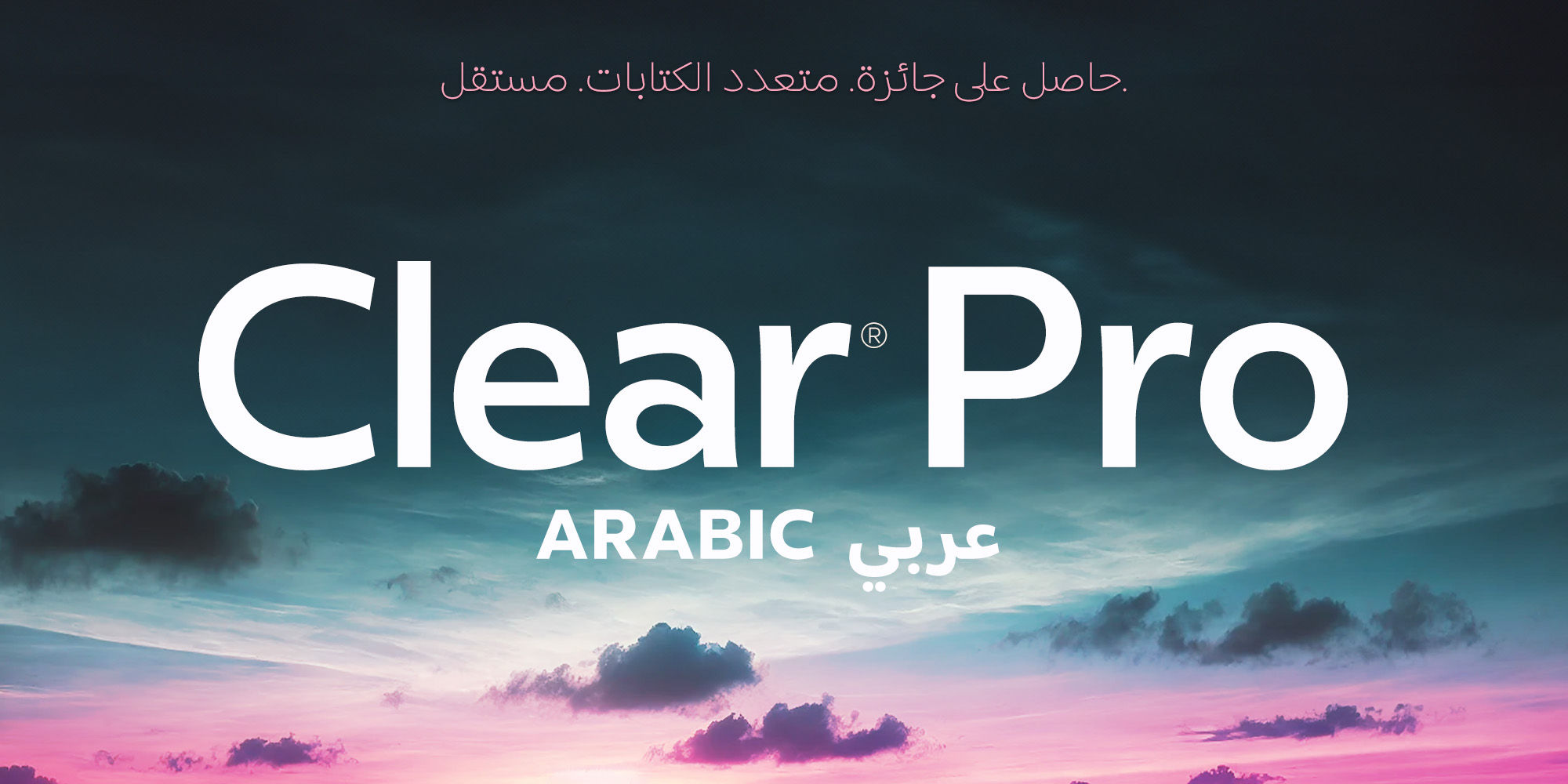
كلير عربي
Winner of the 2024 Communication Arts Award of Excellence. Clear Sans™ Pro is a rational geometric sans serif designed to provide an alternative to vernacular and geometric typefaces. Originally hand-painted in 2008, it was completed for a friend's identity and later expanded. Inspired by the bold, straightforward lettering of early 20th-century signage, Clear Sans™ Pro combines precision with warmth. It offers a comprehensive range of weights, widths, italics, and an extensive character set, making it both familiar and versatile. Clear Sans™ Pro balances assertiveness and friendliness, bringing a sophisticated yet approachable tone to any design.
Clear Sans™ Pro has been further expanded to support a variety of scripts, including Arabic, Cyrillic, Greek, Japanese, Khmer, Korean, Lao, and Thai. This extensive script coverage ensures Clear Sans™ Pro maintains its versatility and accessibility across different languages and cultural contexts, making it an ideal choice for global brands and multilingual projects.